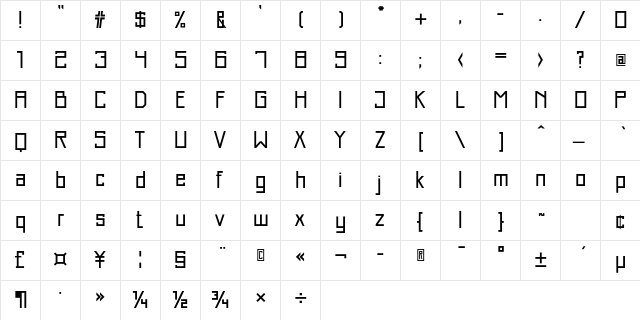
Just Square LT Std Cyrillic Regular
| Foundry | Linotype GmbH |
| Designer | Zoran Kostic |
Design Context for Just Square LT Std Cyrillic Typeface
Just Square LT Std Cyrillic offers clean, dependable letterforms without strong stylistic allegiance, making it a practical choice for designers who need flexibility. The delicate stroke weight brings airiness and refinement to layouts.